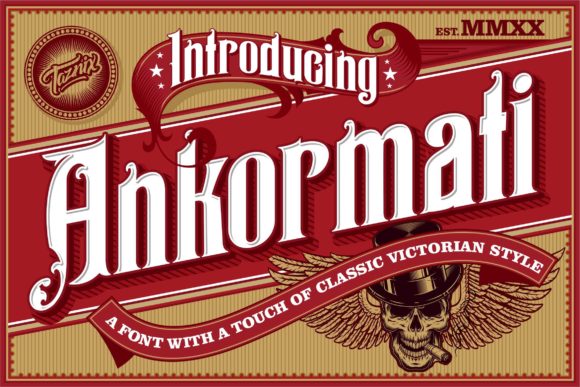
The Designer’s Delight: Ankormati Font
I still remember the frustration of working on a project, pouring my heart and soul into it, only to be held back by one thing: the font. I was trying to create a vintage-inspired poster, but no matter which font I chose, it just didn’t feel right. That was until I stumbled upon Ankormati, a bold, vintage-styled display font that instantly brought my design to life. In this article, I’ll share my experience with Ankormati, its features, and how to make the most of it in your designs.
What I Love About Ankormati ✨
• 💥 **Bold and eye-catching**: Ankormati is perfect for making a statement. Its bold strokes and vintage flair instantly grab attention.
• 🎨 **Versatile**: Whether you’re designing a poster, a logo, or a social media graphic, Ankormati adapts seamlessly to different contexts.
• 👍 **Easy to read**: Despite its boldness, Ankormati remains surprisingly legible, even at smaller sizes.
While Ankormati is an excellent font, it’s not without its quirks. For instance:
• 🤔 **Limited use for body text**: Due to its bold nature, Ankormati is best suited for headings and titles rather than body text.
• ⚠️ **Glyph limitations**: While Ankormati has a range of glyphs and stylistic alternates, it may not have every special character you need.
The Story Behind Ankormati
Ankormati was designed with the goal of creating a bold, attention-grabbing font that still feels nostalgic and vintage-inspired. Its creator drew inspiration from classic signage and advertising fonts from the early 20th century, aiming to craft a font that’s both modern and timeless.
Q: What type of projects is Ankormati best suited for?
Ankormati is ideal for projects that require a bold, eye-catching font, such as posters, logos, social media graphics, and headings.